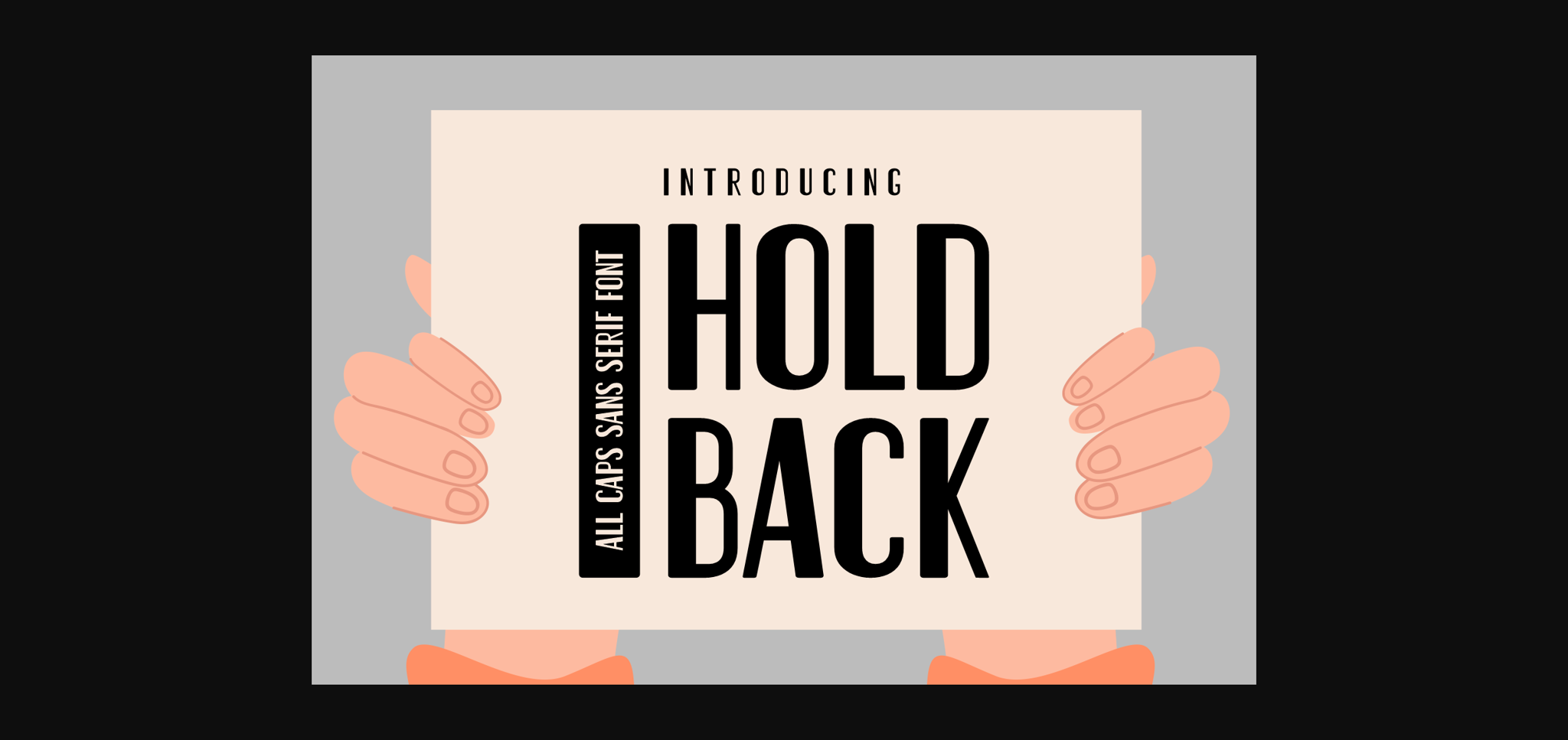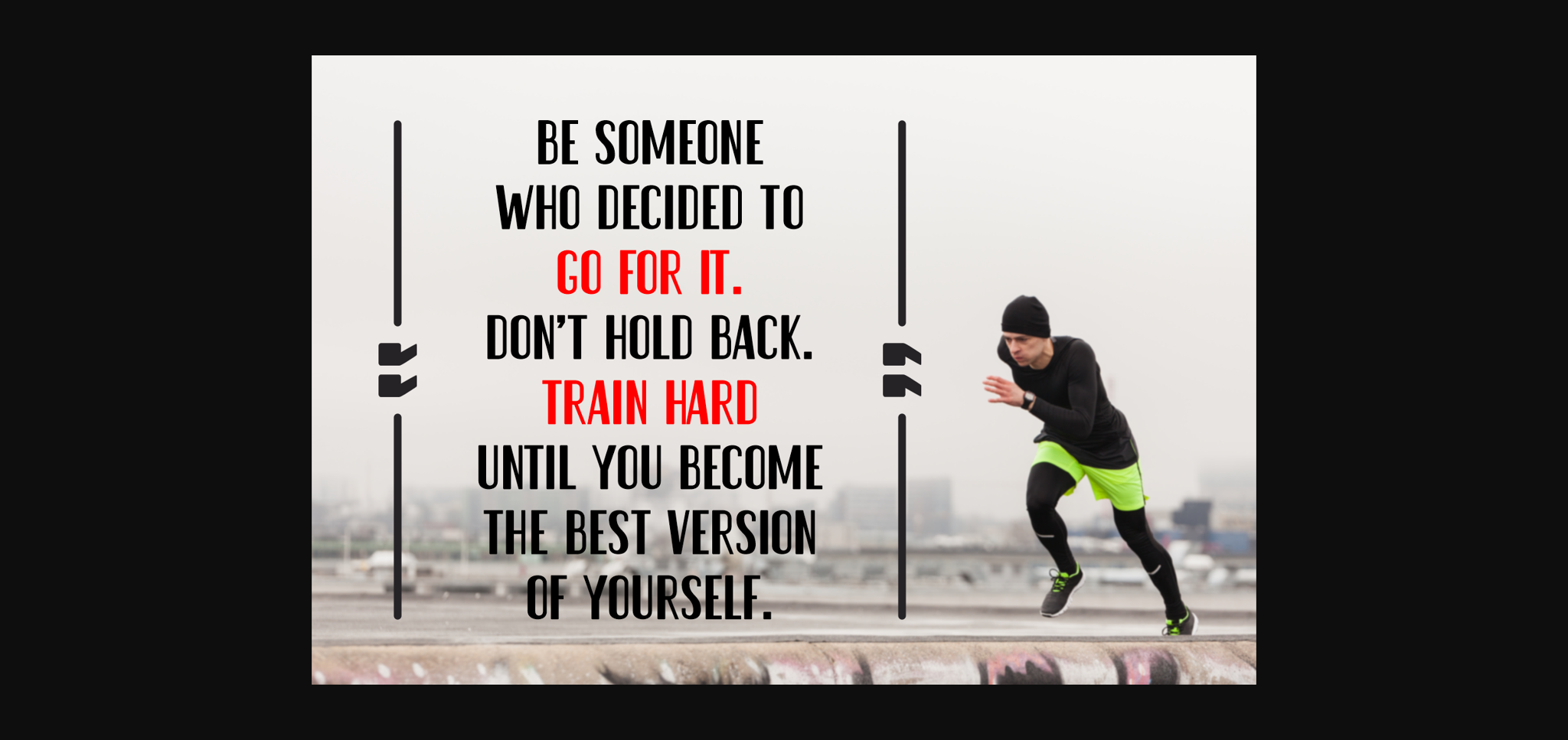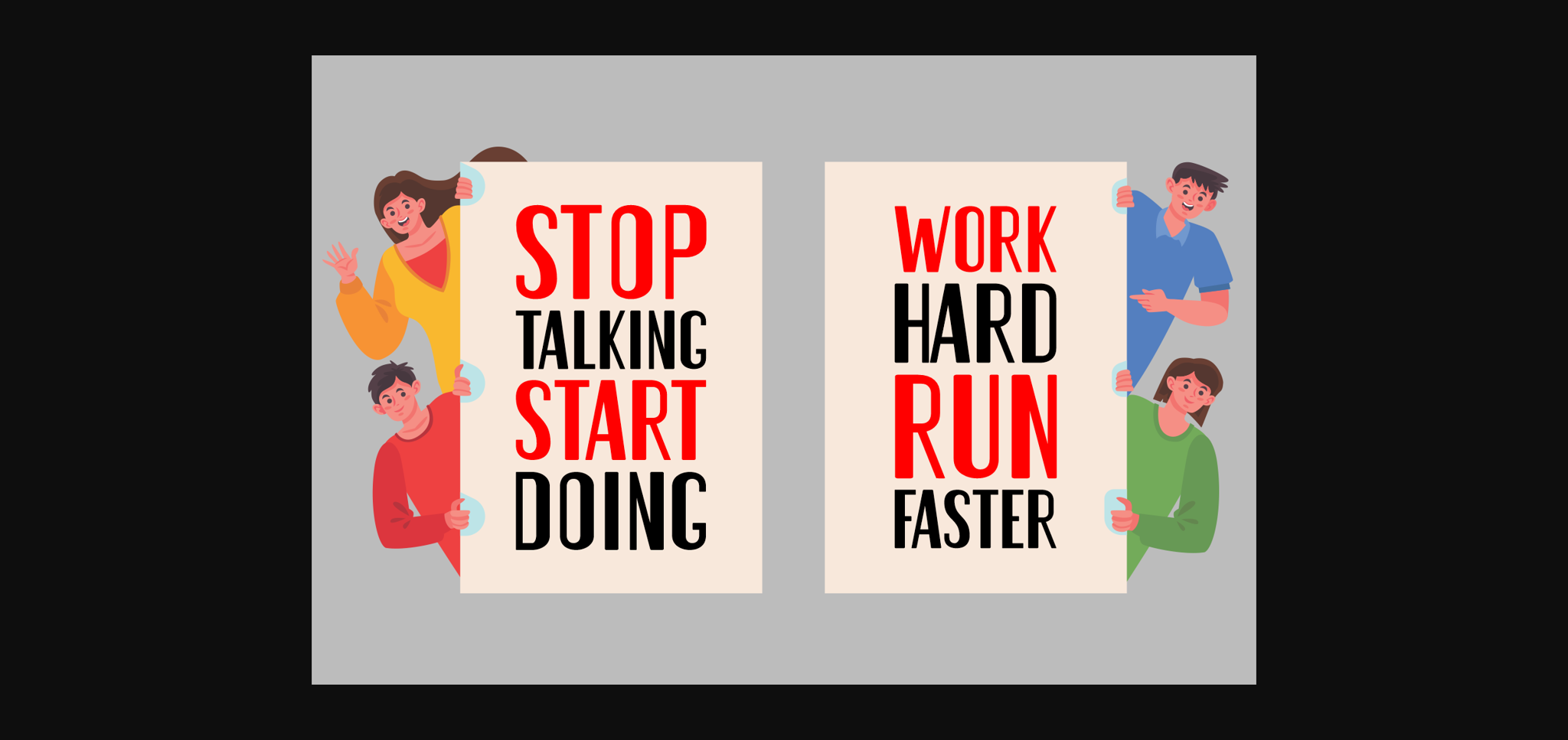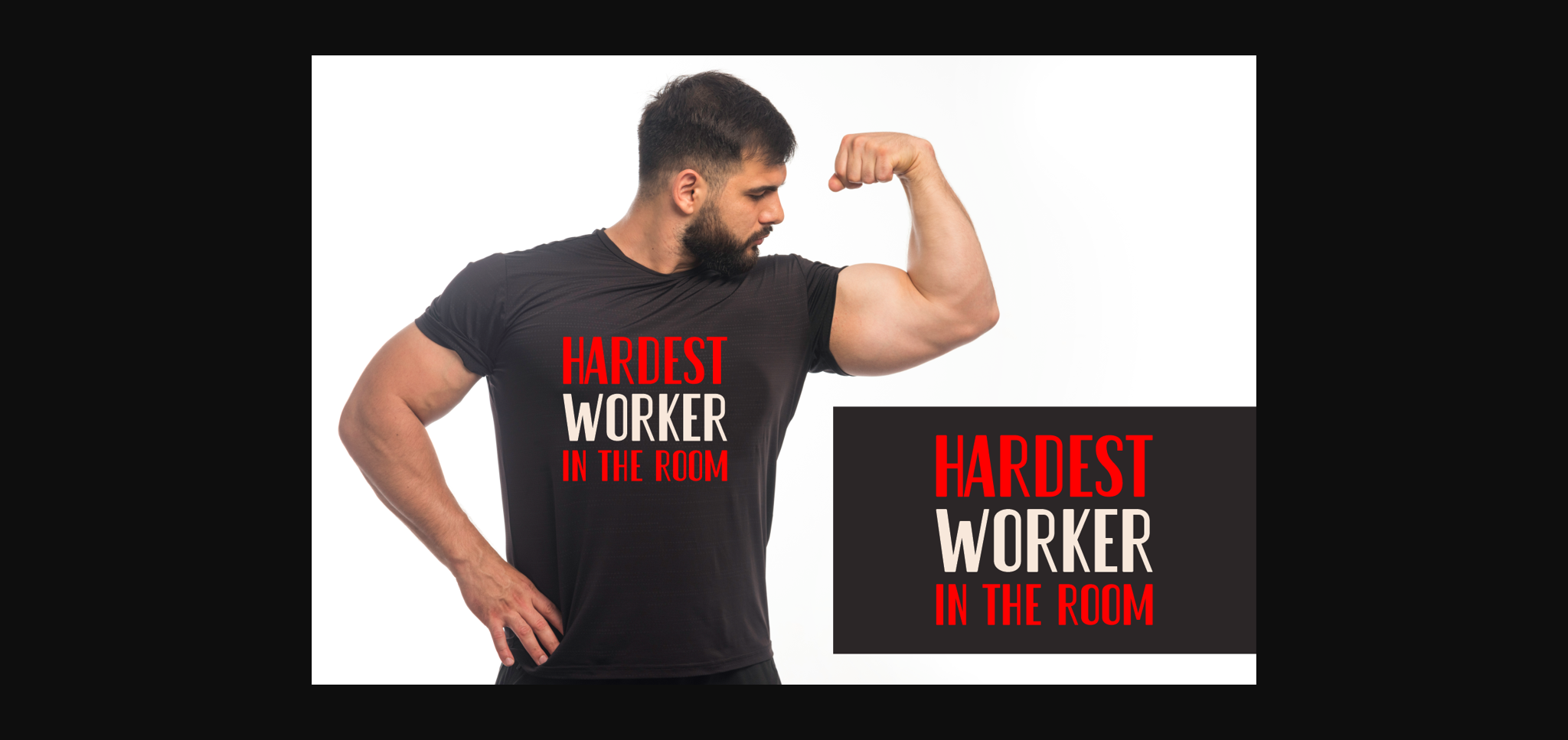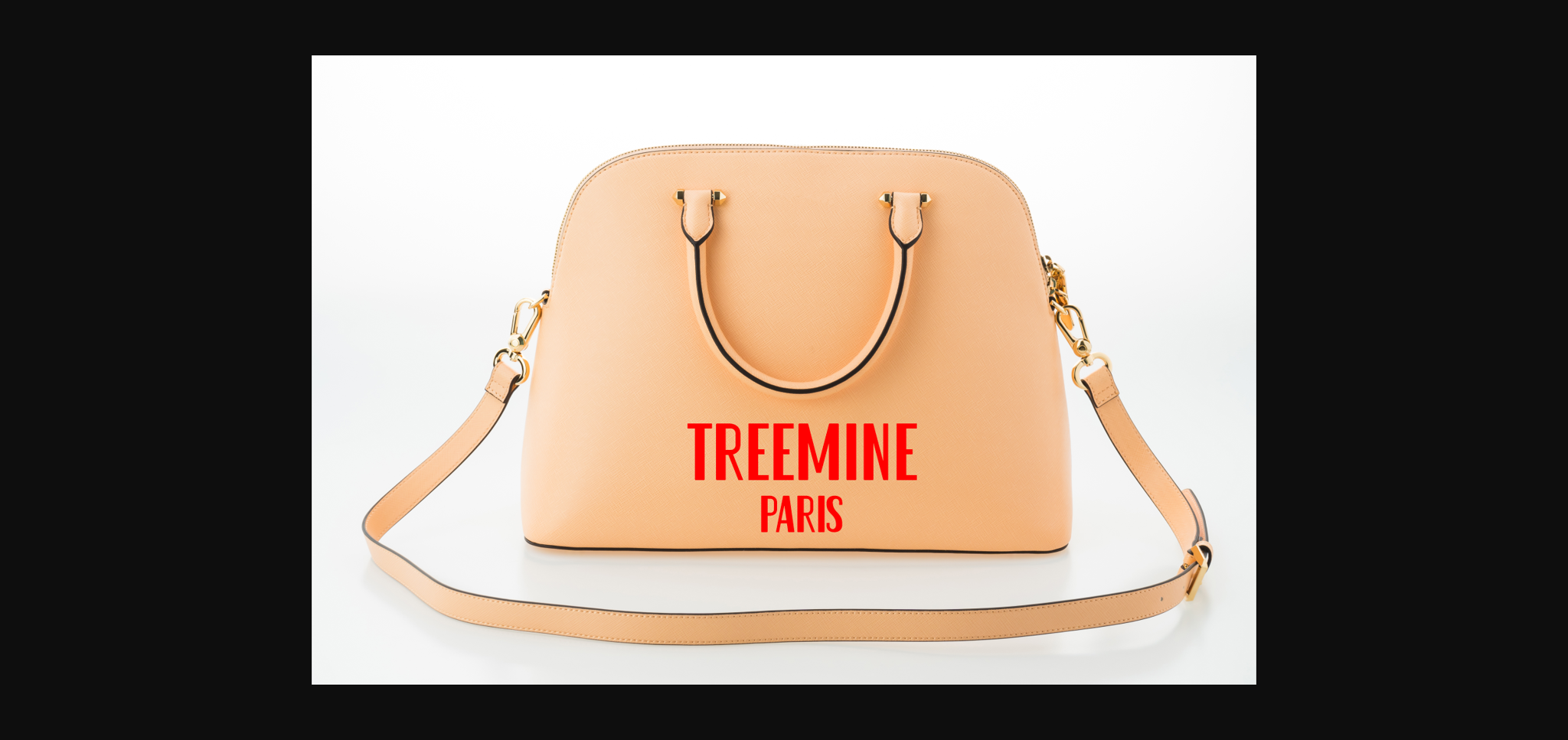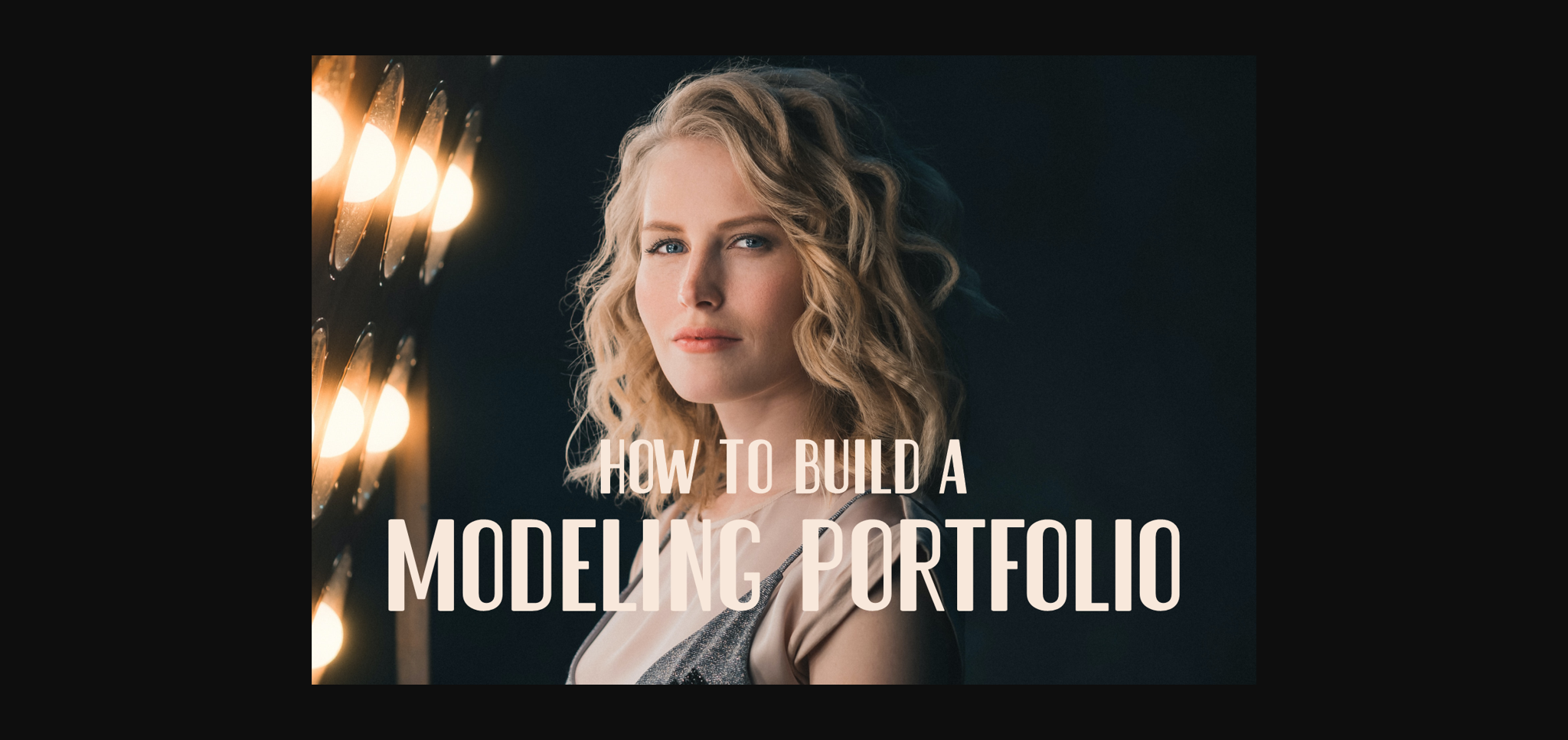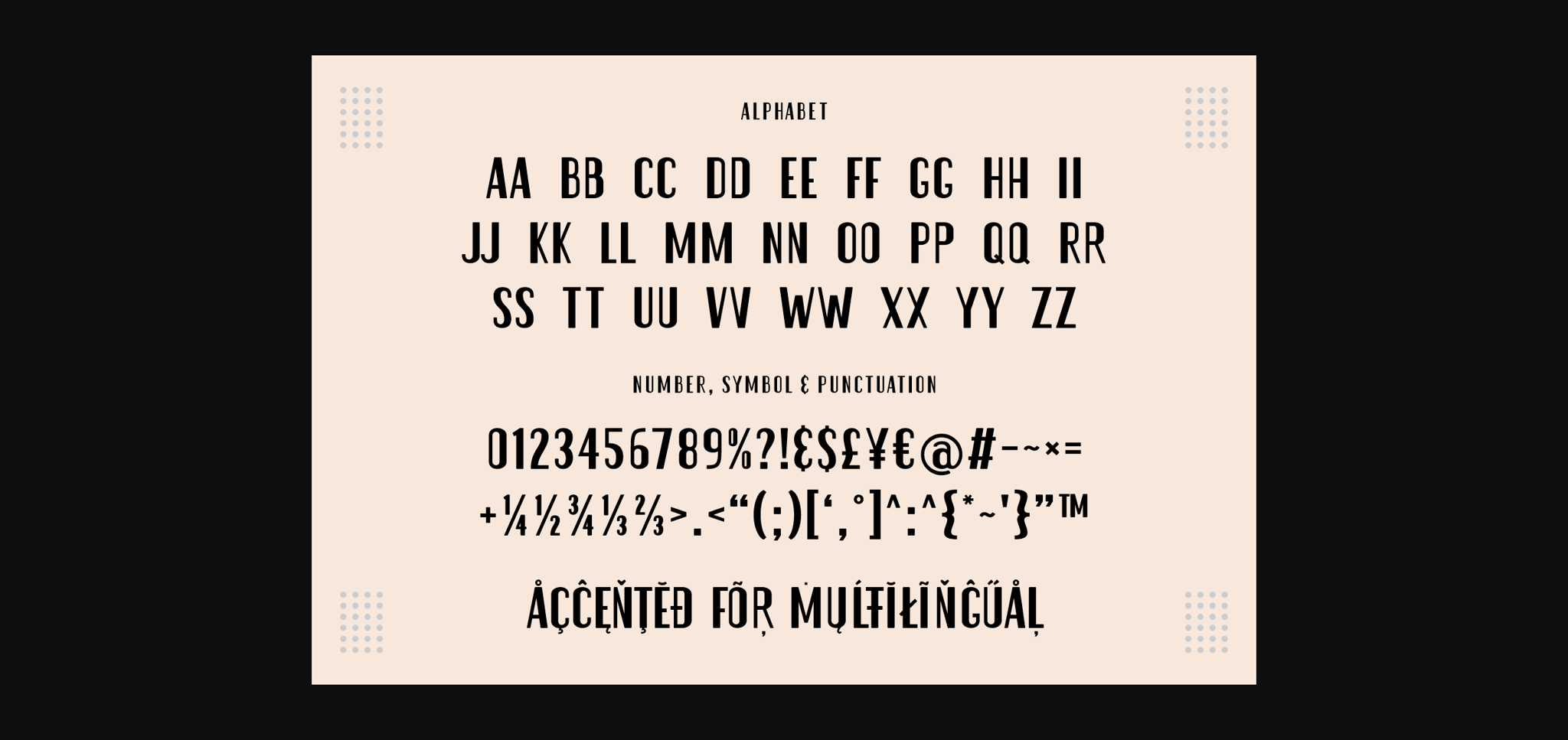
About Hold Back Font
Hold Back is a bold, all caps sans serif font featuring the perfect amount of trendiness. Whether you’re using it for crafting, digital designing, presentations or greeting cards making, it’s perfect!